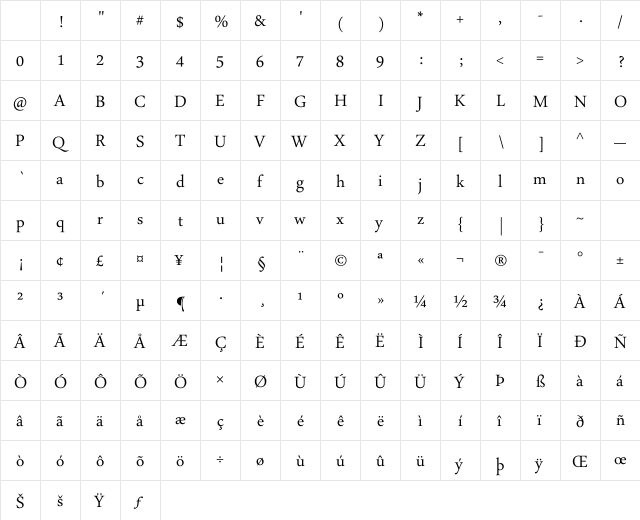
Complete DaunPenh Regular glyph index. Displaying only characters natively supported by DaunPenh Regular font.
DaunPenh is a composed and adaptable typeface that performs quietly and consistently across a wide range of design contexts.
Who designed the DaunPenh Regular font?